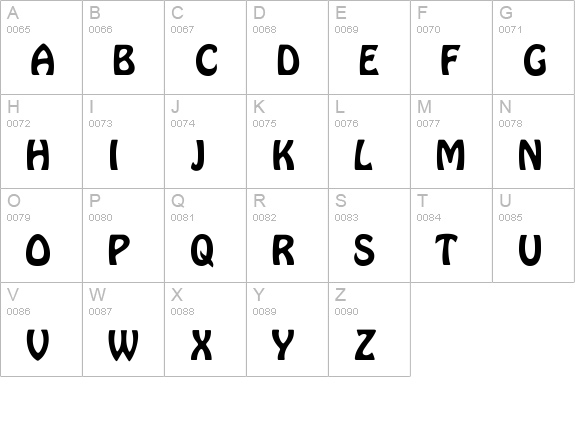
HoboFont is a unique and quirky typeface that exudes a sense of free-spirited creativity. Its playful and irregular letterforms give off a casual and laid-back vibe, making it perfect for projects that require a touch of individuality and charm. Despite its unconventional appearance, HoboFont remains highly readable and versatile, making it suitable for a wide range of design applications. Best of all, HoboFont is completely free to download at FontsMarket.com. This means that you can add this delightful font to your collection without any cost, allowing you to explore its creative possibilities without any restrictions. Embrace the whimsical charm of HoboFont and let your designs stand out with its distinct personality.